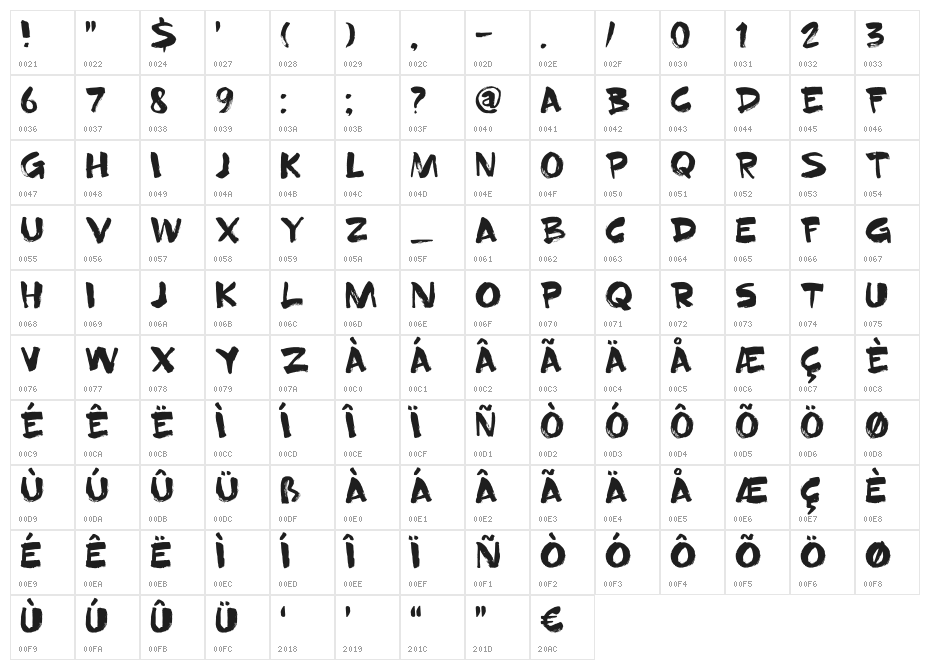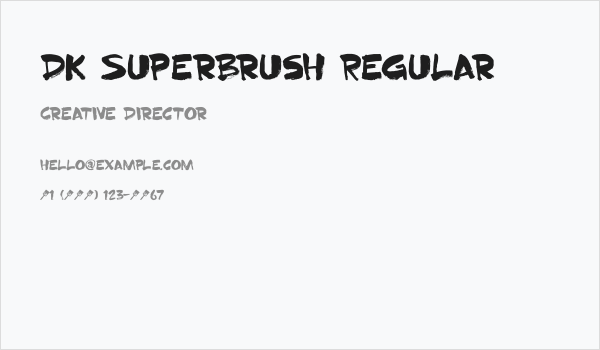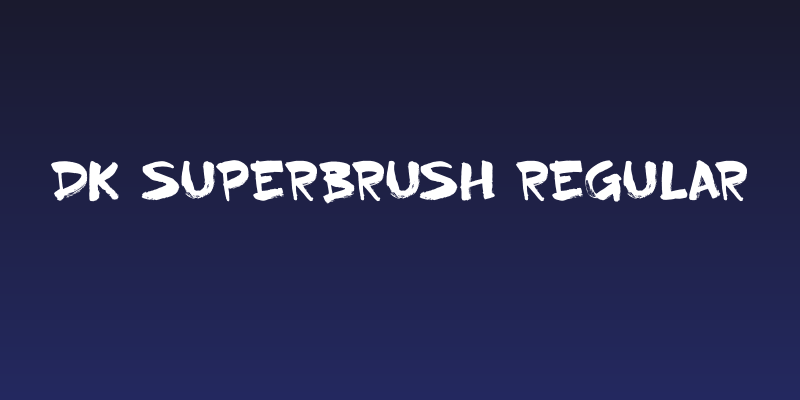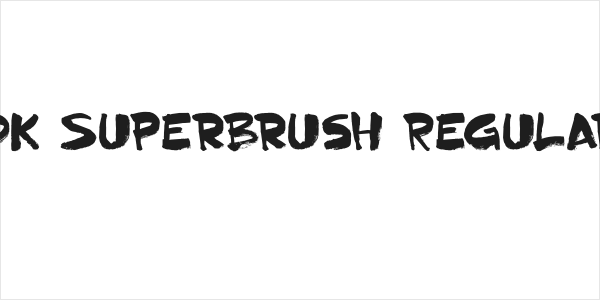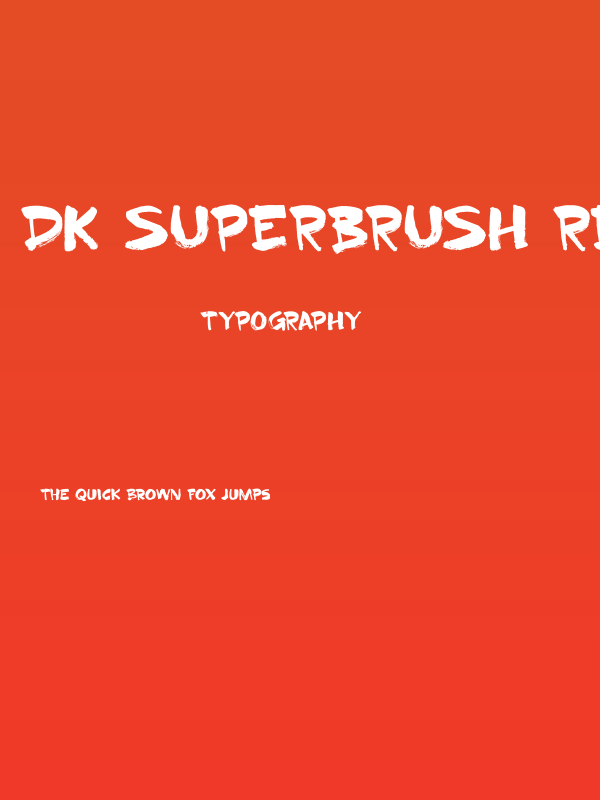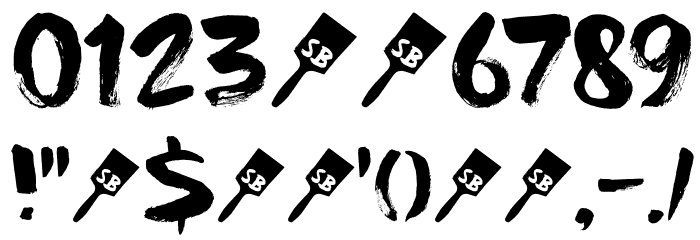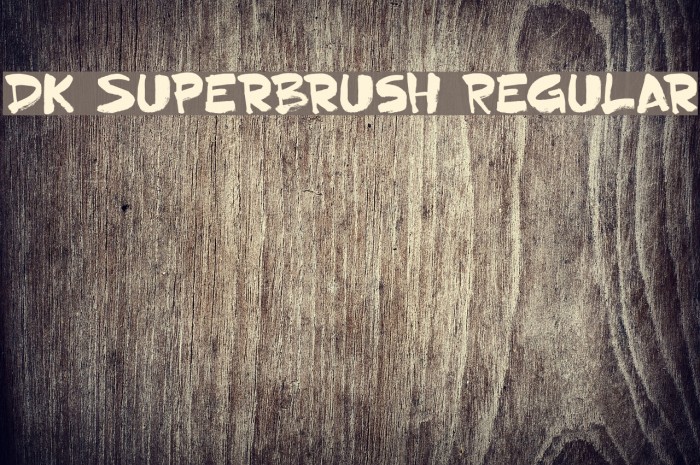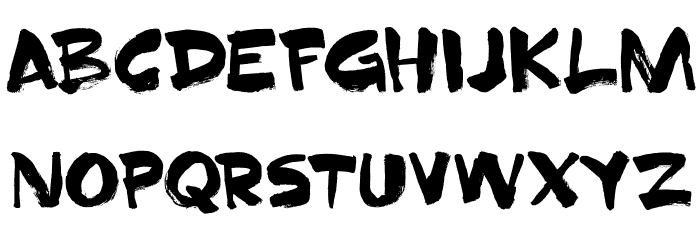
DK Superbrush Regular Font
This font features a bold, brush-stroke style that exudes energy and dynamism. The characters are crafted with a hand-painted appearance, showcasing irregular edges and varying stroke thicknesses, which contribute to its expressive and artistic feel. The uppercase and lowercase letters maintain a consistent style, with a slightly condensed form that enhances readability while retaining a casual, informal vibe. The numbers and special characters follow the same brush-stroke aesthetic, ensuring a cohesive look across all elements. This font is ideal for projects that require a touch of creativity and boldness, such as posters, branding, and artistic designs.
| Width | Condensed |
| Overall Style | Artistic, Energetic, Creative |
| Proposed Projects | Ideal for posters, branding, artistic designs, and creative projects. |